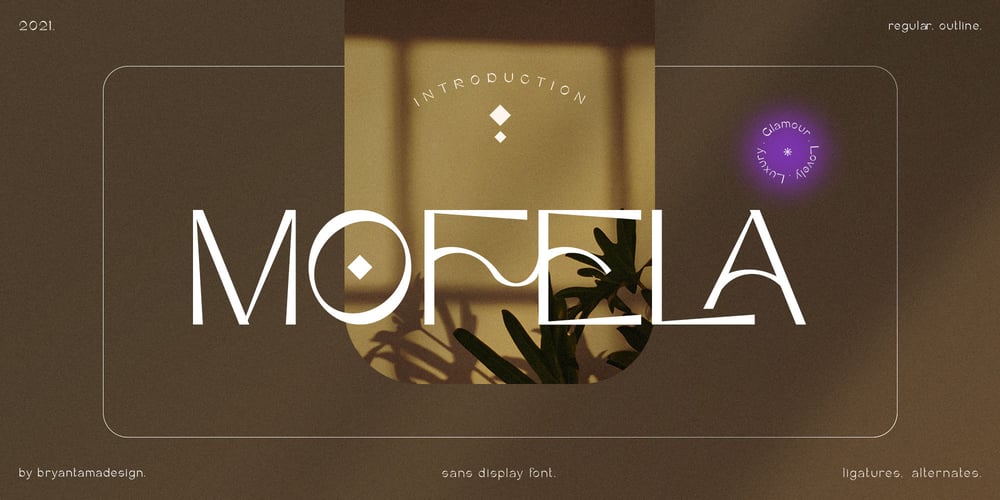
Mofela
Mofela font
Mofela Font Family was designed by Bryantama Nur Hidayat Suyoto and published by Bryantamanh. Mofela contains 2 styles and family package options. Introducing Mofela. Glamour, Lovely, Luxury sans display font.Inspired by a luxury theme with magical feels that makes the font has a unique personality, you can use it for branding, social media, posters, packaging, & more. Mofela font OpenType feature, ligatures, alternates, and Multilingual support.